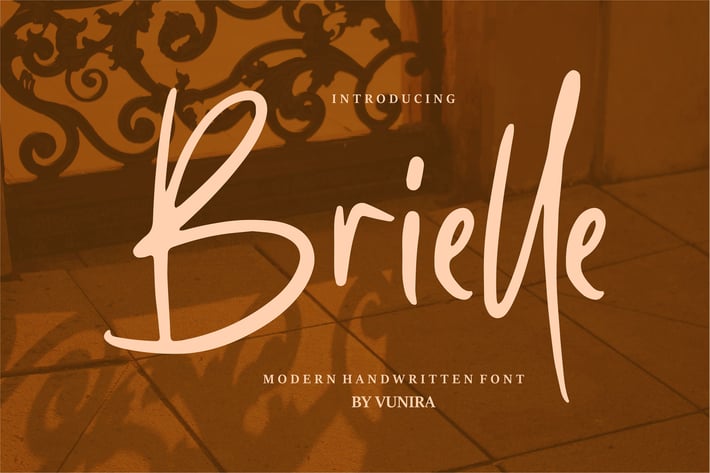
Brielle | Modern Handwritten Font
Brielle | Modern Handwritten Font with a calligraphy style, So beautiful on invitation like greeting cards, branding materials, business cards, quotes, posters, and more!